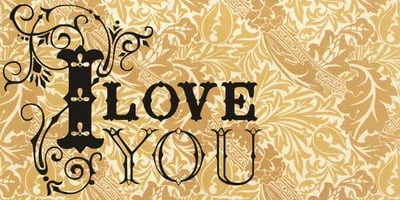
Surrey Font
Surrey Font is perfect for English countryside tourism, heritage estate branding, traditional tea house signage, countryside bed & breakfast marketing, garden center materials, antique shop graphics, rural wedding venues, artisan craft branding, village festival posters, and any charming project that celebrates the quintessential beauty of English countryside elegance and pastoral tradition.
What makes Surrey Font exciting is its gentle sophistication that captures the refined tranquility of English countryside living and the timeless charm of pastoral landscapes. This typeface embodies the elegant simplicity of country manor life with graceful letterforms that suggest rolling hills, cottage gardens, and the unhurried pace of rural England. The font's pastoral character makes it perfect for brands and projects that want to communicate authenticity, tradition, and the enduring appeal of countryside refinement.
The Surrey Font family includes multiple weights and stylistic variations, featuring light, regular, and bold versions along with italic styles and decorative elements inspired by traditional English calligraphy. This comprehensive collection allows designers to create elegant countryside typography that maintains the font's signature refined character while providing versatility for various heritage and rural design applications.
When exploring authentic English countryside typography, Surrey Font represents an exceptional opportunity to work with a typeface that genuinely captures the spirit of rural English elegance and pastoral sophistication. This font demonstrates superior craftsmanship in balancing traditional charm with contemporary functionality, creating letterforms that feel both historically grounded and refreshingly modern.
Professional designers appreciate Surrey Font for its ability to instantly evoke feelings of tranquility, authenticity, and refined countryside living across various media platforms. The font's elegant character makes it particularly effective for heritage brands, luxury countryside experiences, and premium rural products seeking to establish emotional connections with audiences who appreciate traditional values and natural beauty.
The enduring appeal of Surrey Font lies in its perfect representation of English countryside elegance and pastoral sophistication that continues to resonate with people seeking authentic experiences and natural tranquility. This typeface serves as a powerful tool for brands wanting to communicate the timeless appeal of rural life and traditional craftsmanship in our increasingly urbanized world.
For creative professionals working with heritage and countryside brands, Surrey Font represents the ultimate typography solution that brings authentic English countryside charm and pastoral elegance to any application, ensuring designs reflect the refined beauty and timeless grace that define the quintessential English countryside experience.